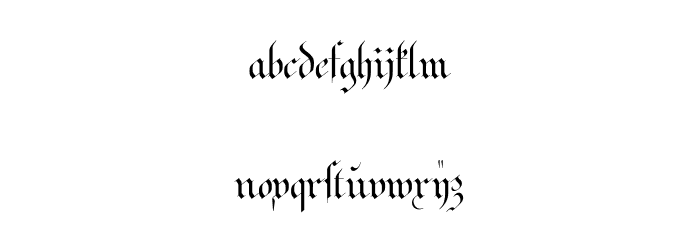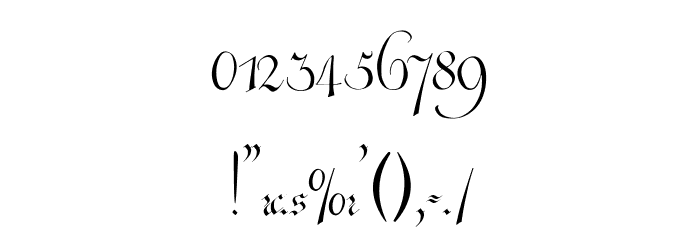
Strassburg Fraktur Font
This font is a highly decorative and intricate blackletter style, characterized by its elaborate and ornate letterforms. The uppercase letters are particularly embellished with flourishes and swashes, creating a sense of elegance and historical charm. The lowercase letters maintain the traditional blackletter sharpness and angularity, providing a striking contrast to the more elaborate uppercase. Numbers and special characters follow the same ornate style, ensuring consistency throughout. This font evokes a sense of medieval or Gothic aesthetics, making it suitable for projects that require a historical or dramatic flair.
An ornate and decorative blackletter font with elaborate flourishes.